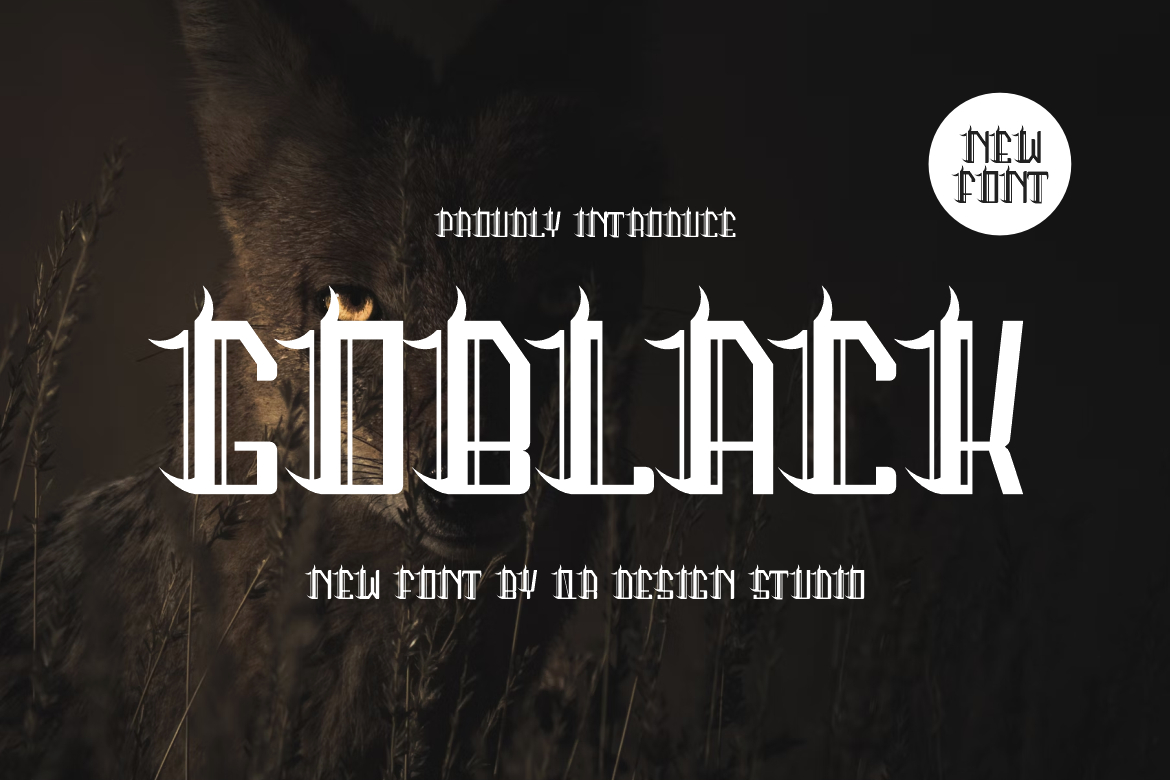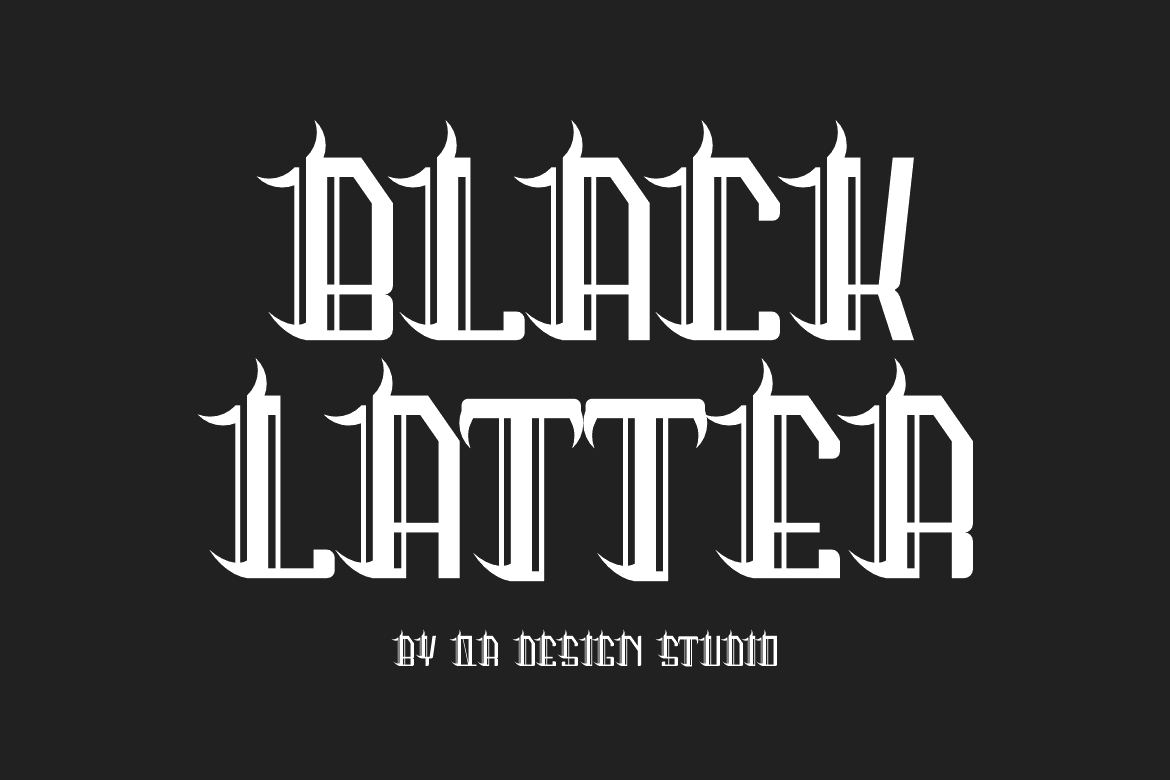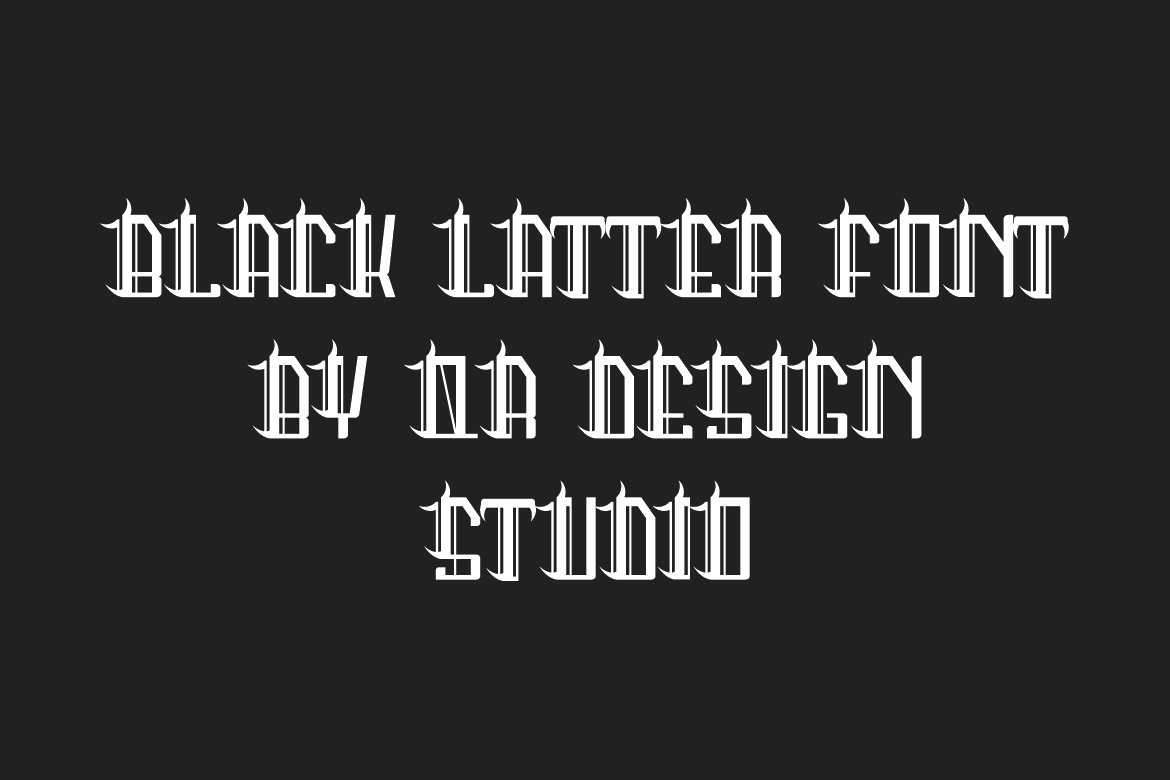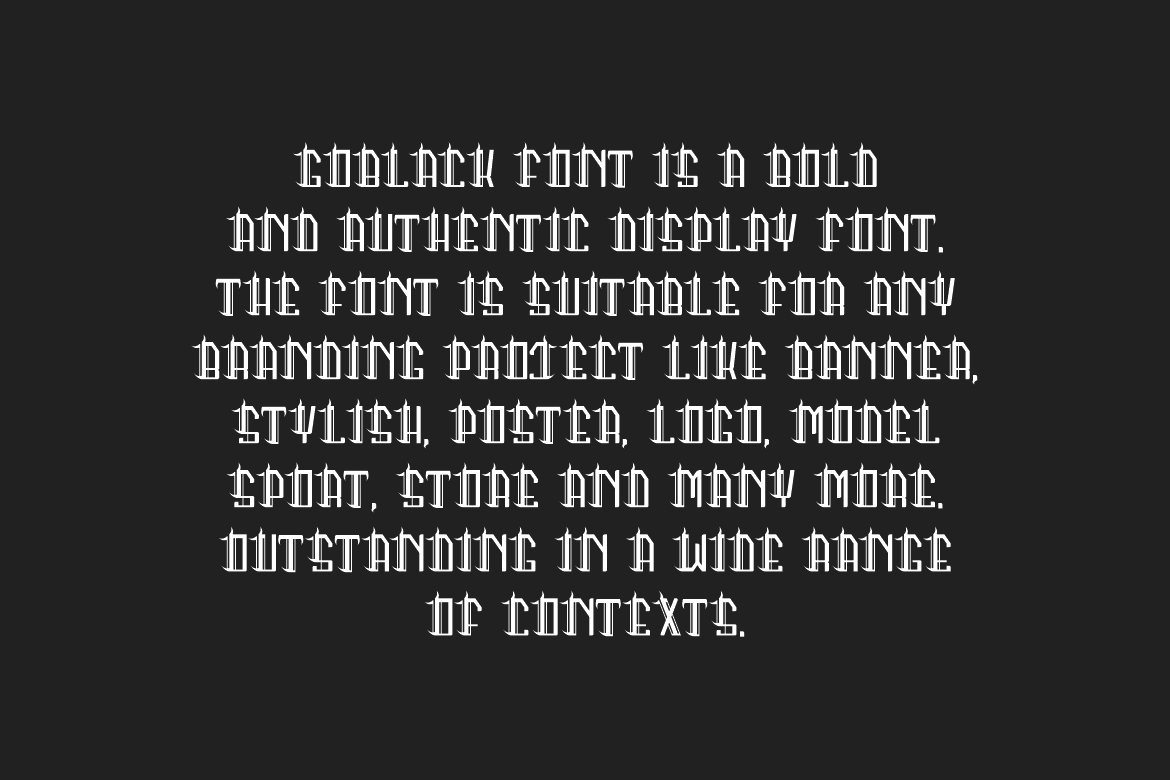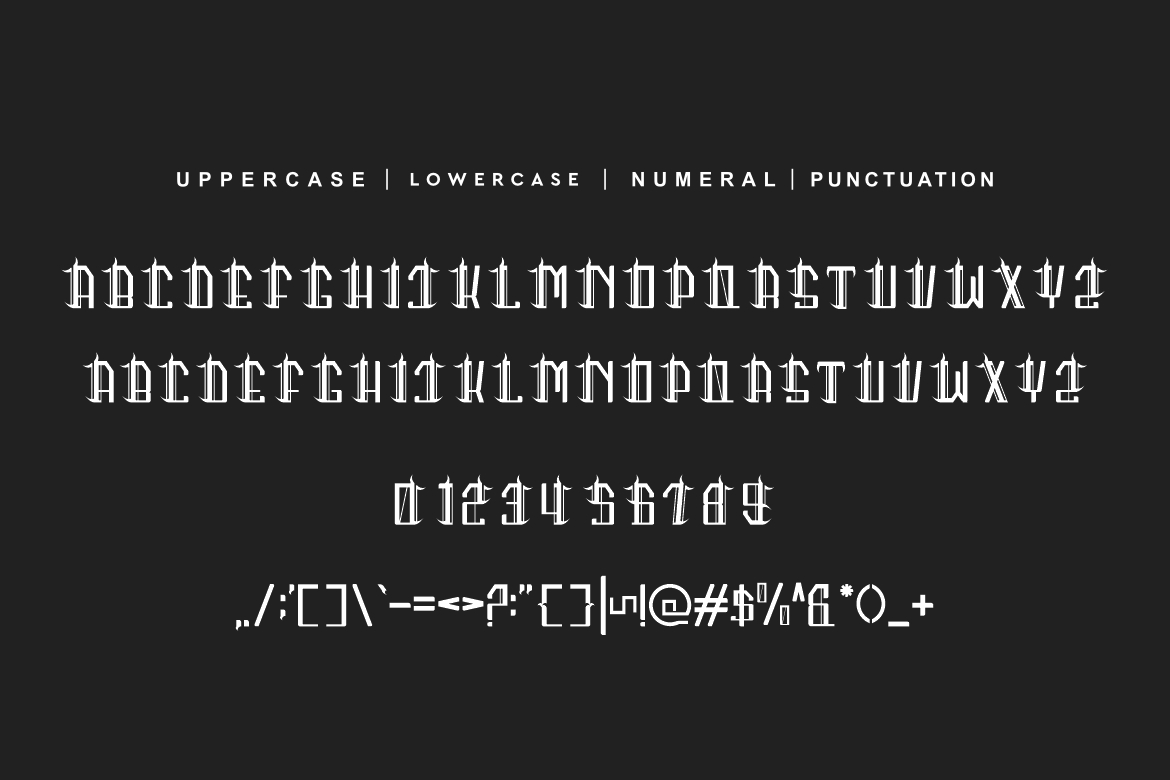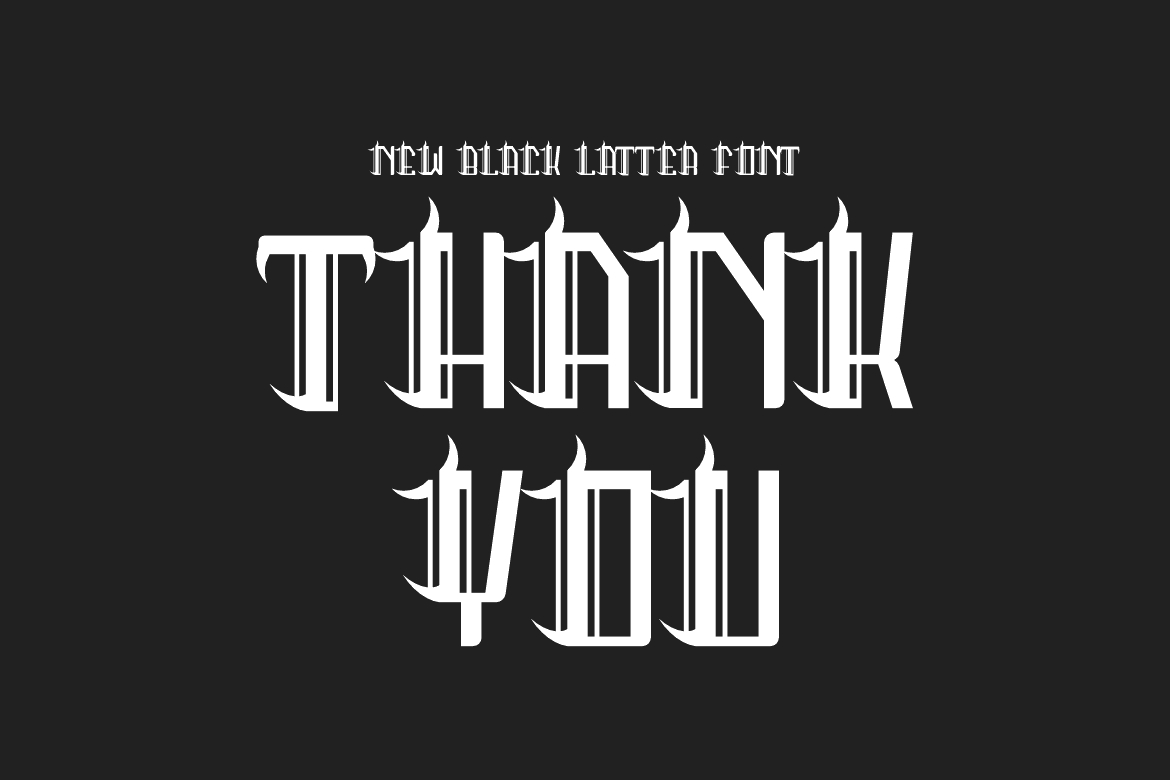
Goblack Font
About Goblack Font
Goblack Font is a bold and authentic display font.
The font is suitable for any branding project like logo, sport, and many more.